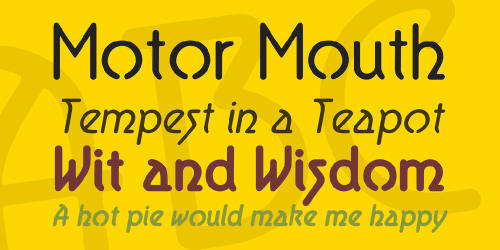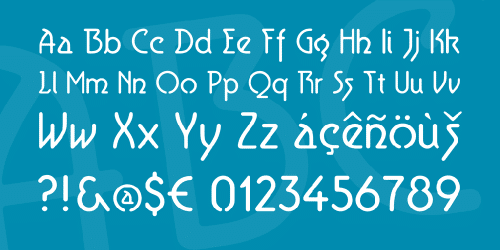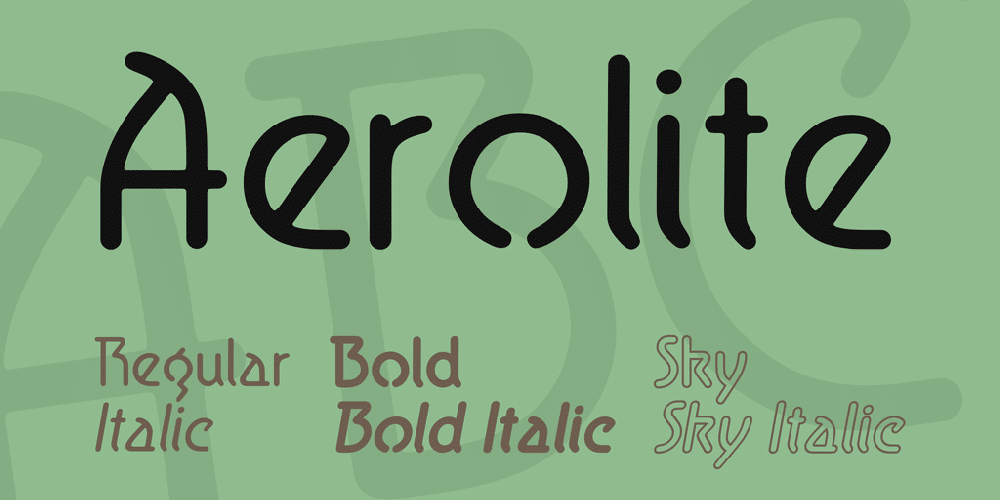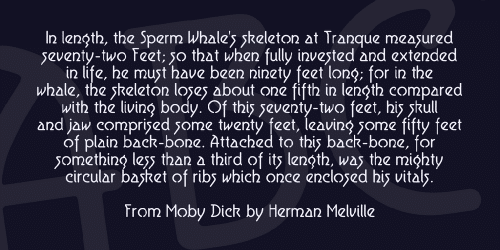
Aerolite© 2010 is a a font designed by Jan Paul and digitized by Brian Kent in New York.
The 6 versions are open type fonts, distinct in character, yet comfortably legible. Thorough kerning makes Aerolite and Aerolite Italic suitable for body text (preferably 12-14 pts). The typeface would be well suited for science or sci-fi projects, evoking the future, the past, time and space travel (aerolites are meteorites) but also for subjects of a spiritual nature. A Celtic Future Legend, either in book form or as a video game comes to mind. There are no boundaries to space or imagination.